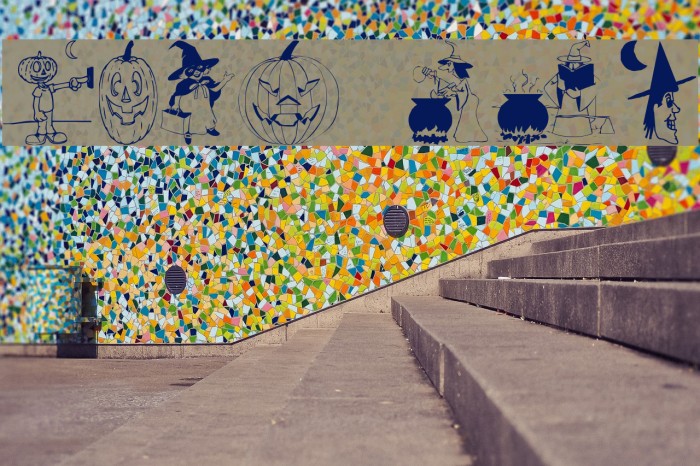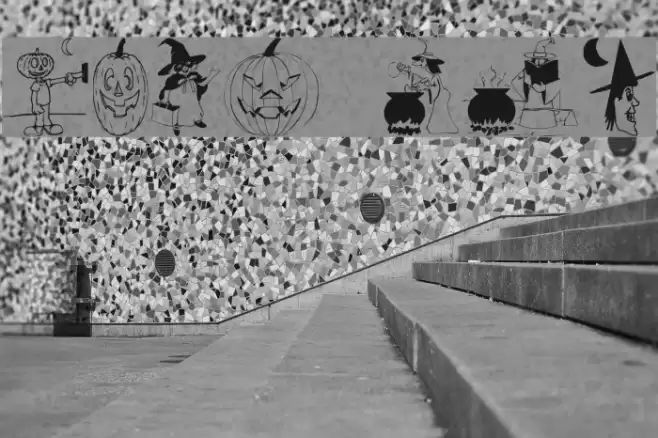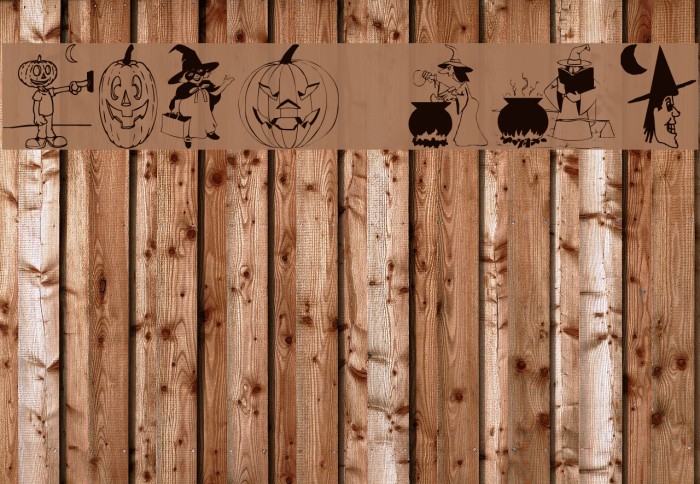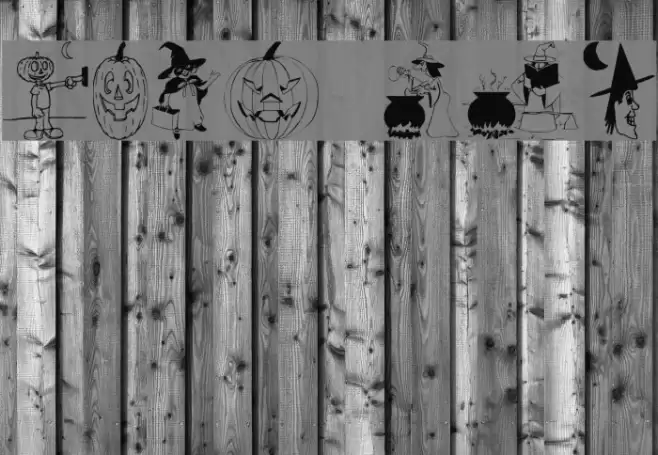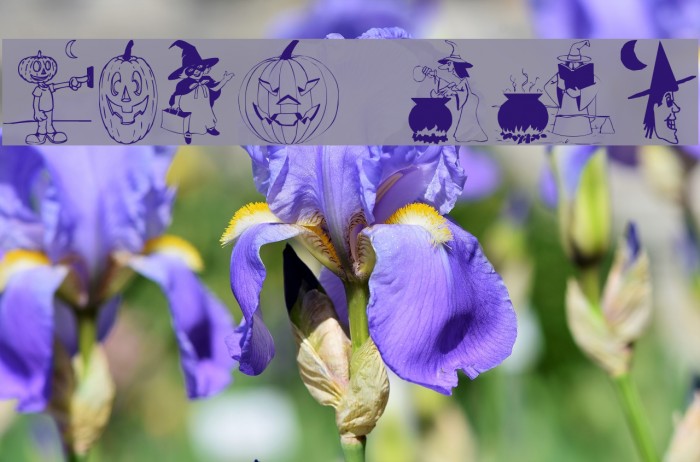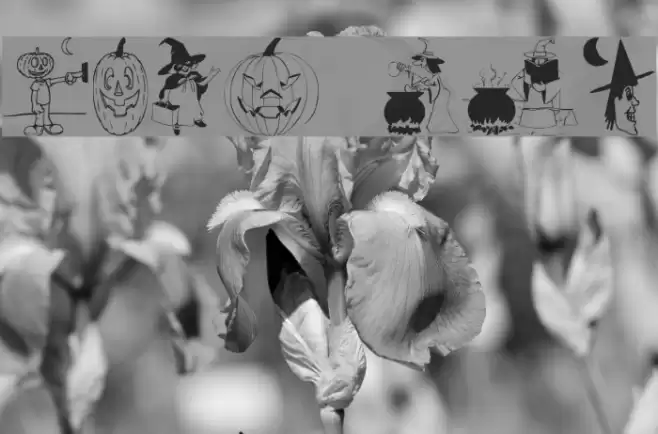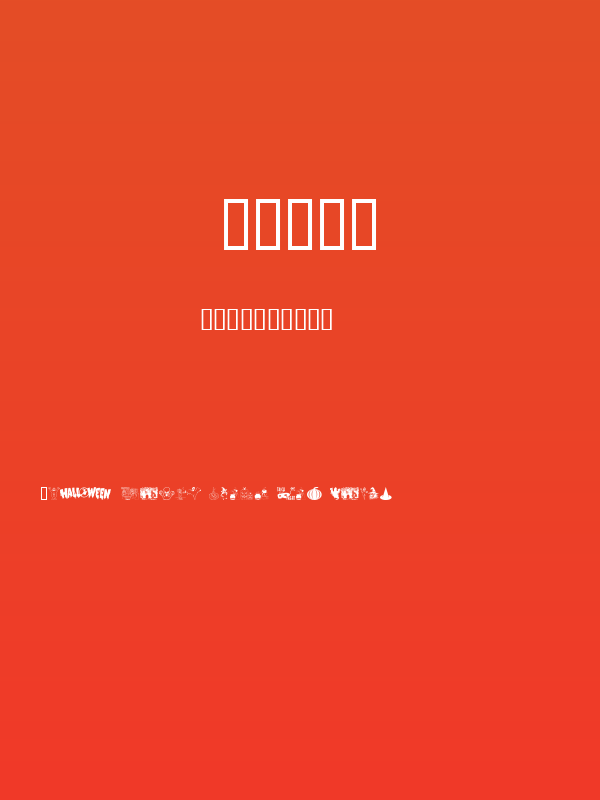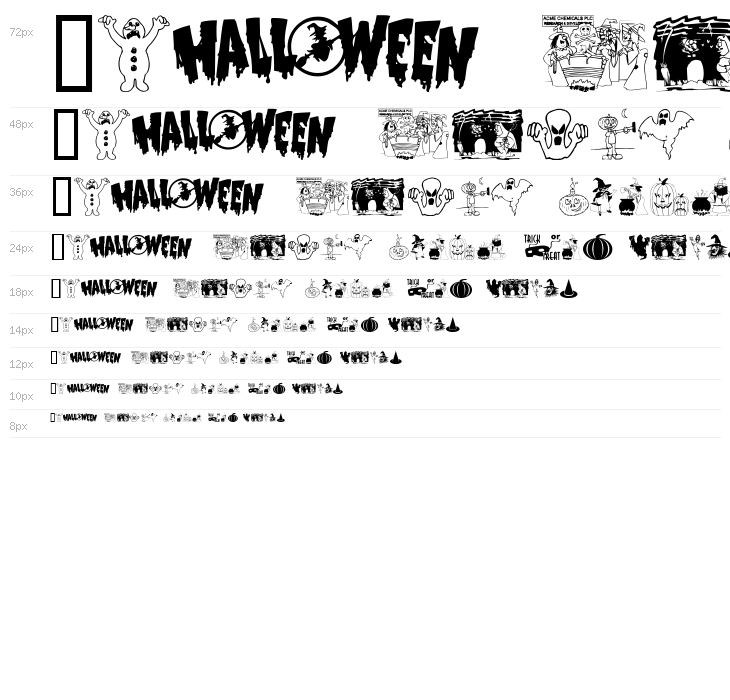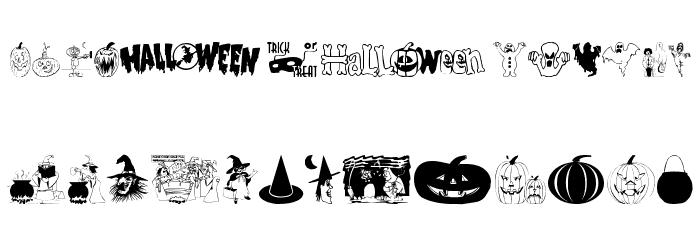
Scary Font
Scary Description
This decorative font is themed around Halloween, featuring playful and spooky elements integrated into each character. The letters are creatively designed with Halloween motifs such as pumpkins, witches, and bats, making it highly thematic and visually engaging. The font is perfect for capturing the essence of Halloween with its unique and artistic style. Each character is distinct, with varying levels of detail and embellishments that add to the overall eerie and festive atmosphere. The font is not suitable for body text due to its intricate designs but excels in decorative applications.